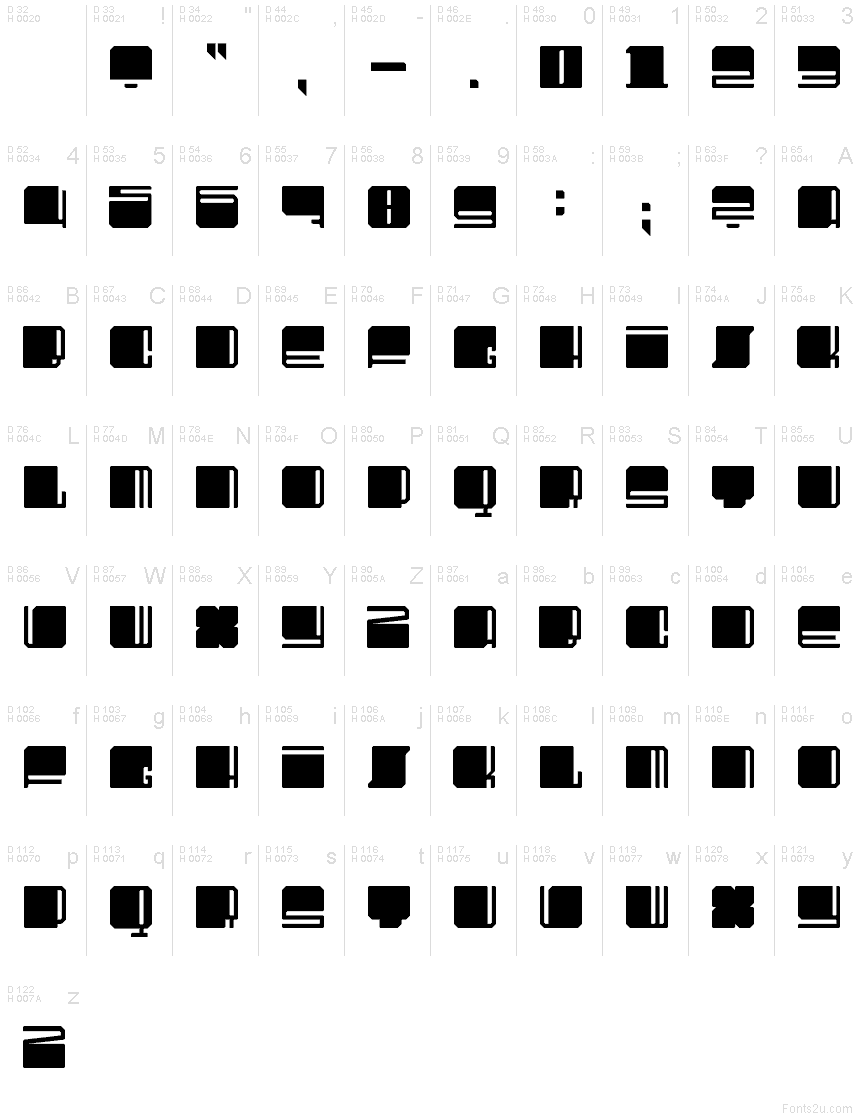
UltraSquared Solid
UltraSquared Solid font, designed by Ultrabold Kommunikationsdesign, is a free groovy display font that fuses bold blocky shapes with a futuristic vibe. It follows an expanded width giving letters generous space to breathe in their own modular appearance for an enhanced converging effect in usage. With varying angles, the geometric typeface reads uniformly with seemingly similar letters.
Use UltraSquared Solid font for digital typography magazines and newspaper headlines, logotypes, brand names and business identities, signage mockups and decorating posters, cards, stationery items like notebooks or binders. The geeky theme can also be implemented in websites for game designs and school projects.
This letter were part of 36 days of type 2021